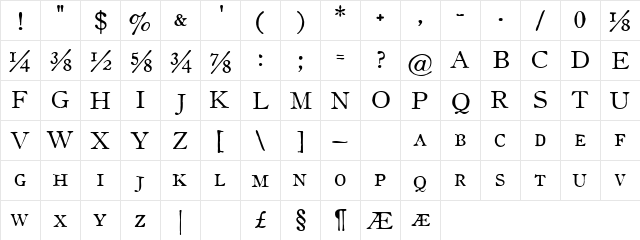
Oldstyle Small Caps HPLHS
Design Context for Oldstyle Small Caps Typeface
Oldstyle Small Caps brings classic typographic sensibility to the table — its serifs and measured letterforms reflect centuries of print heritage.